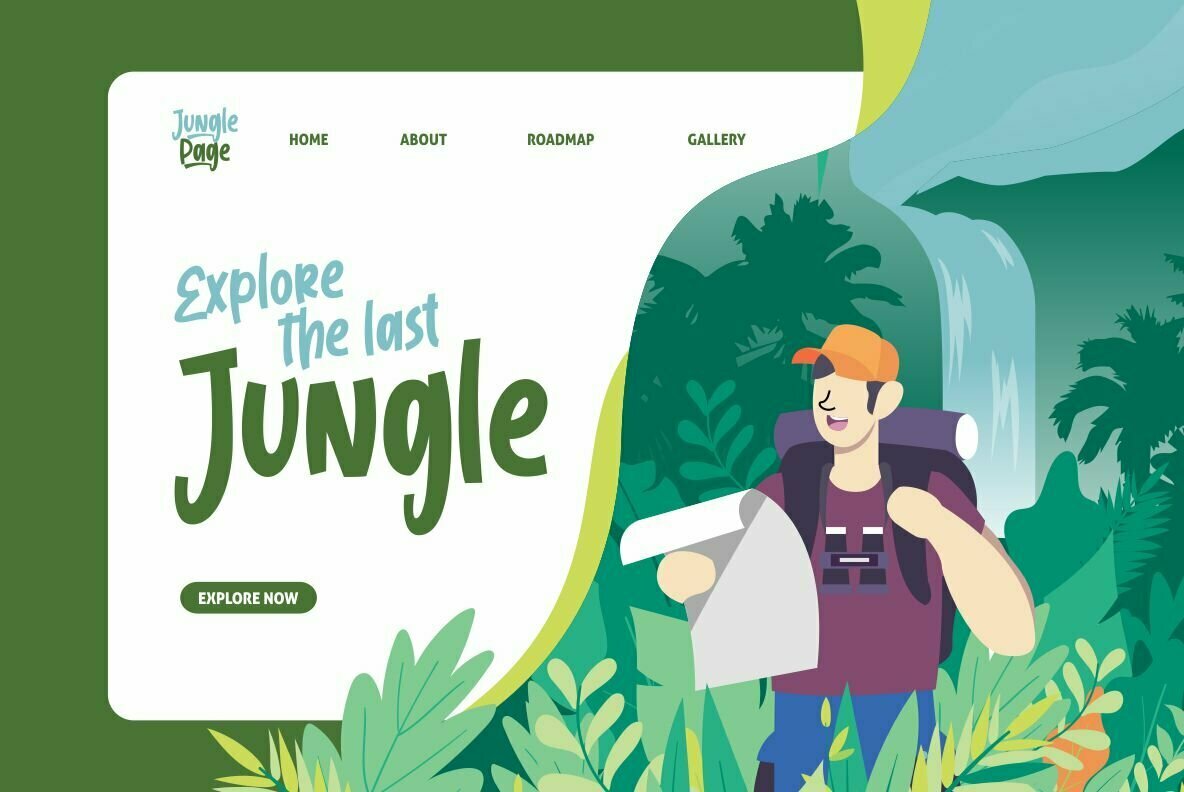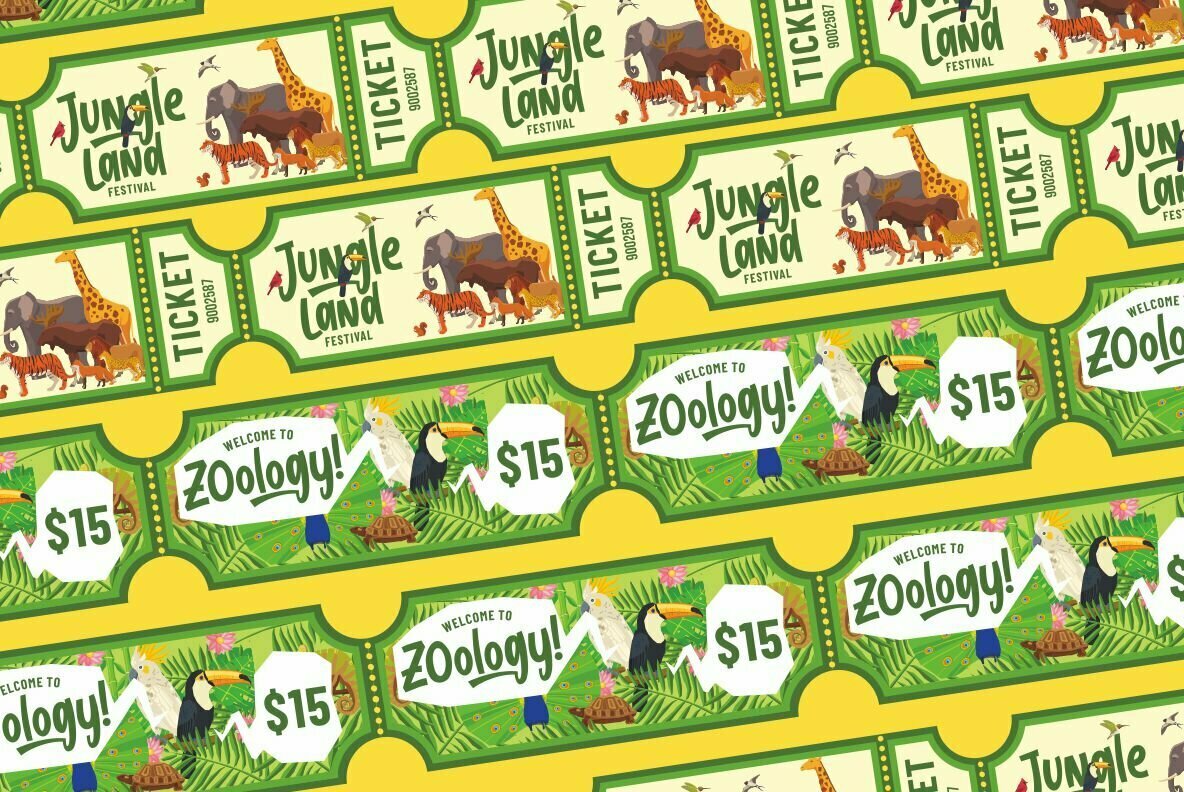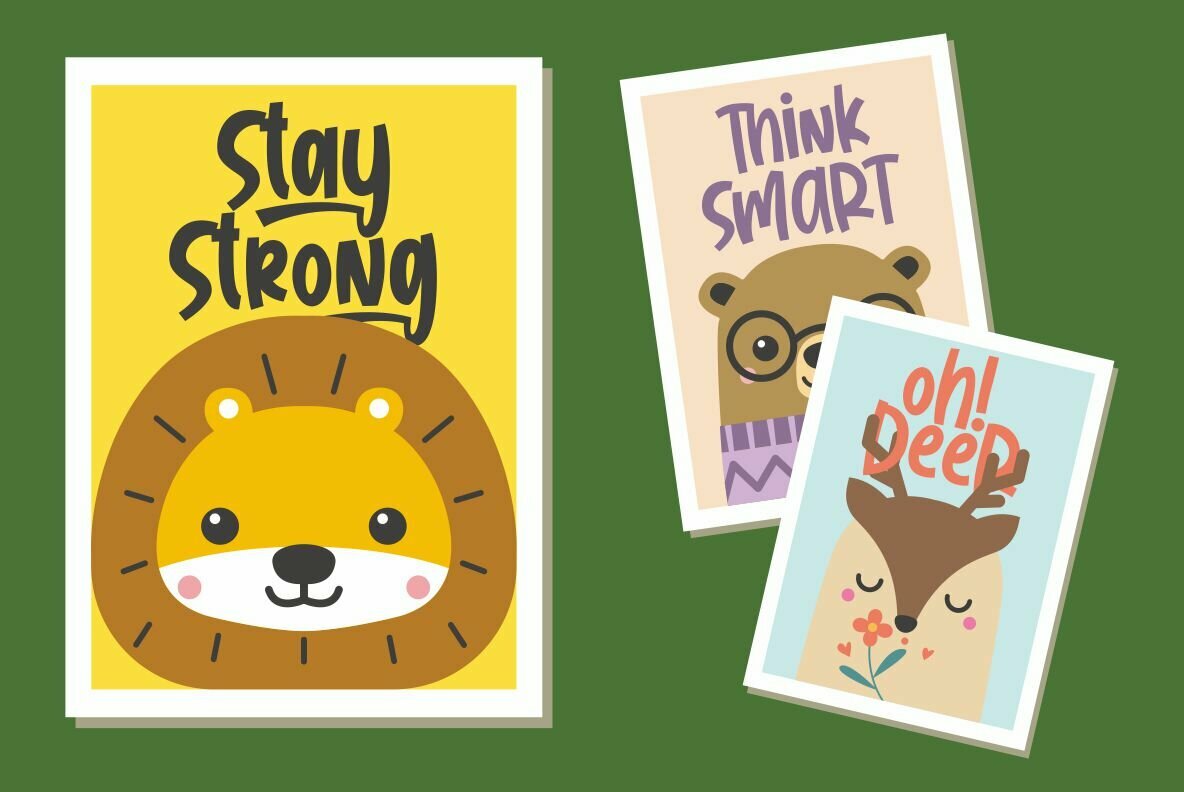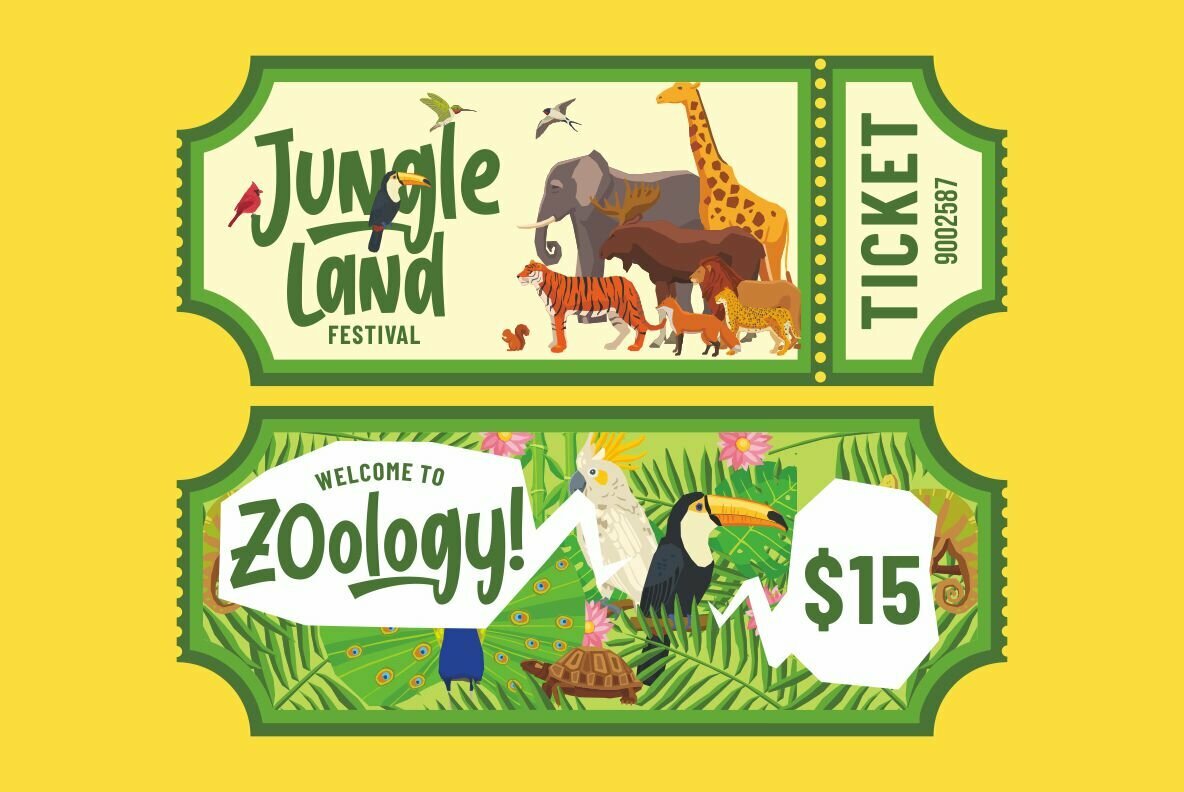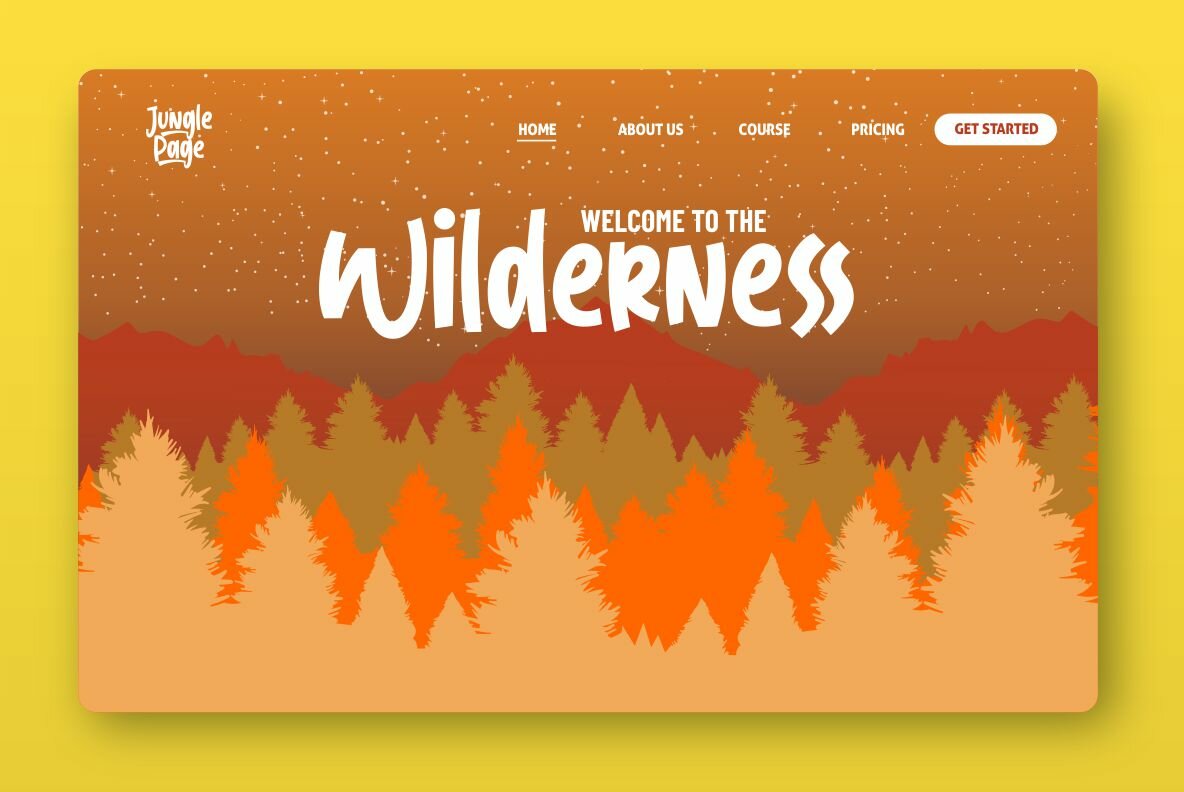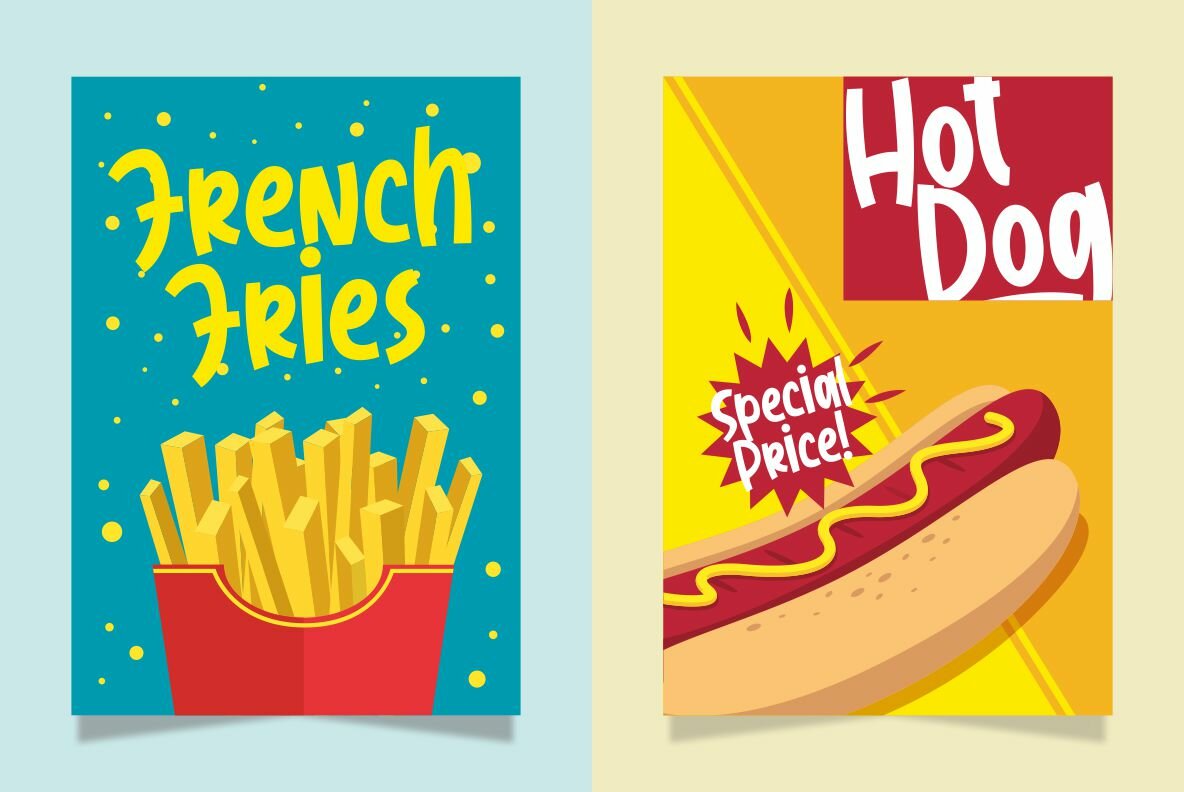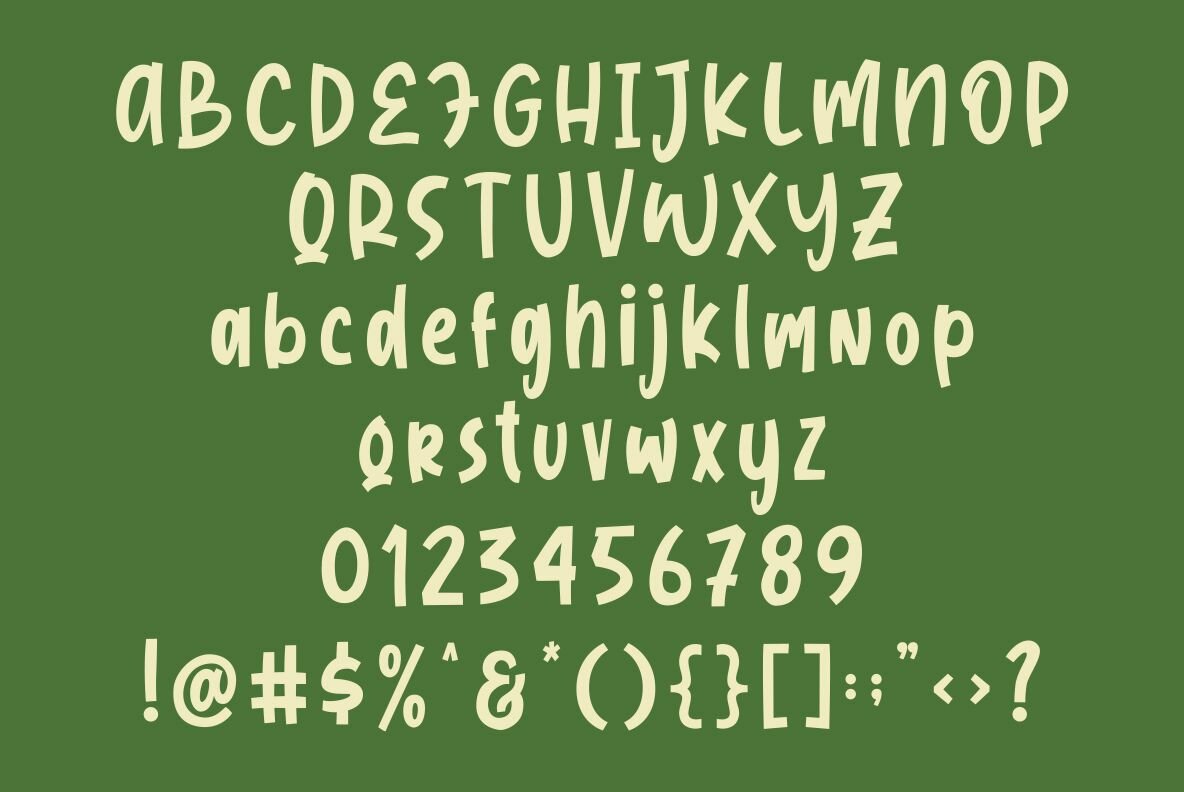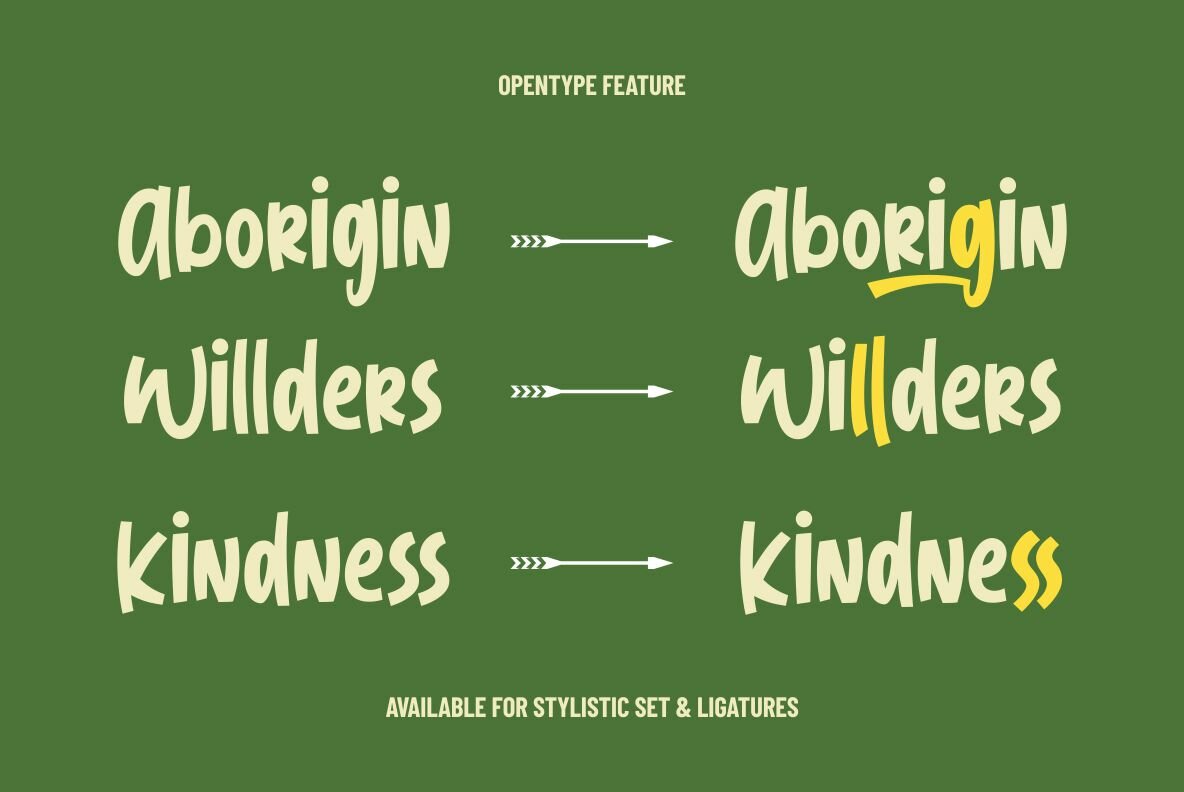
Jungle Land combines attractive curves with a fresh urban edge; delivering a stylish script which is guaranteed to add an eye-catching appeal to your logo designs, brand imagery, quotes, product packaging, merchandise & social media posts.